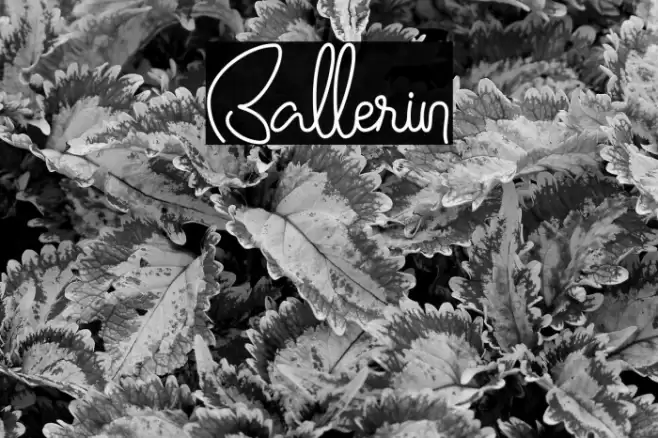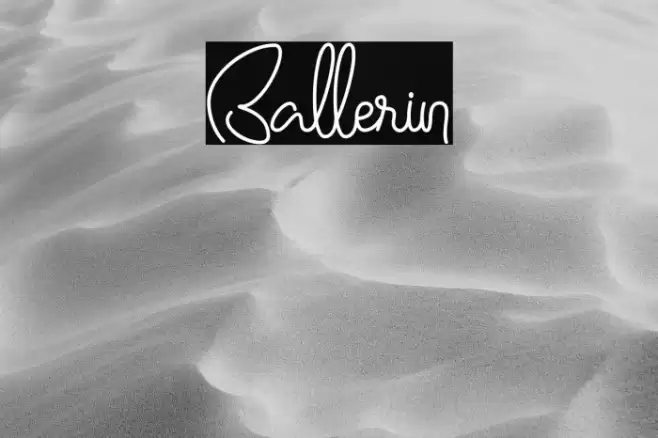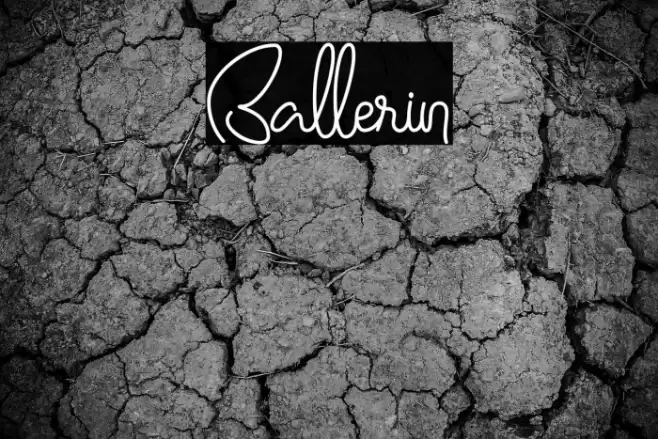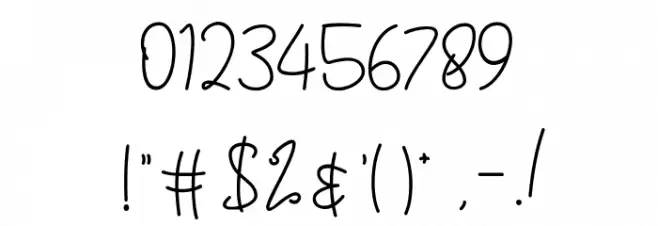
Ballerin Font
Ballerin Description
This font features a playful and whimsical handwritten style, characterized by its flowing, cursive-like strokes. The uppercase letters are tall and slightly narrow, with a unique looping design that adds a sense of movement and elegance. The lowercase letters maintain a consistent flow, complementing the uppercase with their rounded and smooth curves. Numbers and special characters are crafted with the same playful touch, ensuring a cohesive look across all elements. The overall design is light and airy, making it ideal for projects that require a personal or artistic touch.
A playful, handwritten font with flowing, cursive-like strokes from Uncategorized fonts.
- Proposed Projects: Ideal for greeting cards, invitations, personal branding, and creative projects that require a whimsical touch.
- Use Case: Logos, Invitations, Creative projects